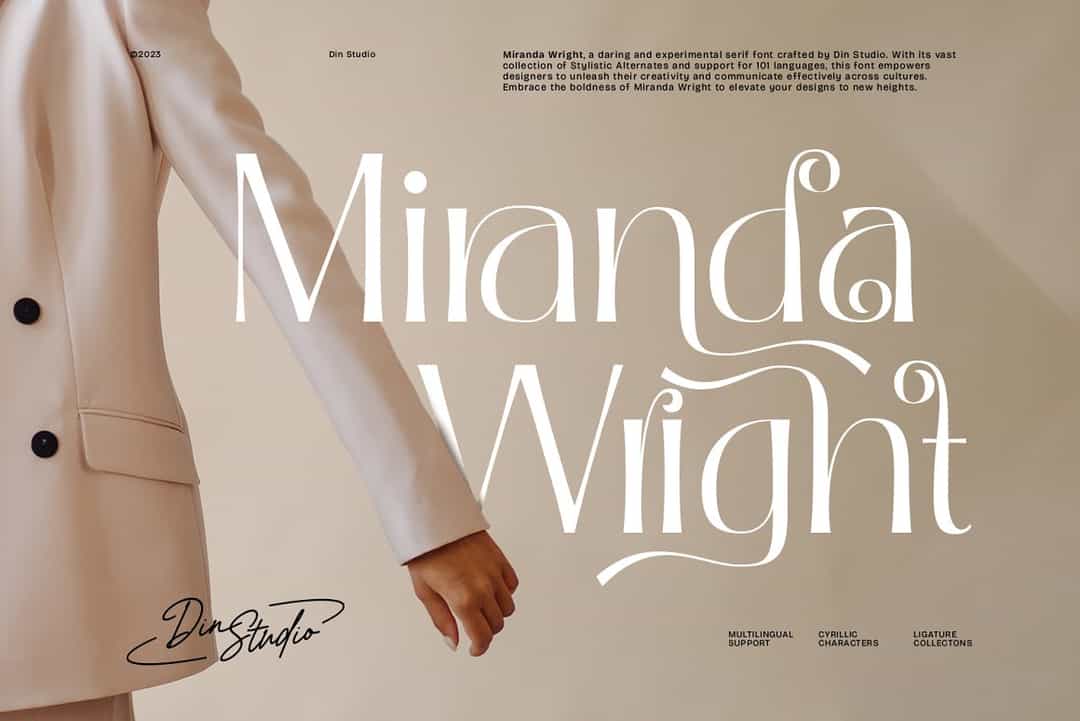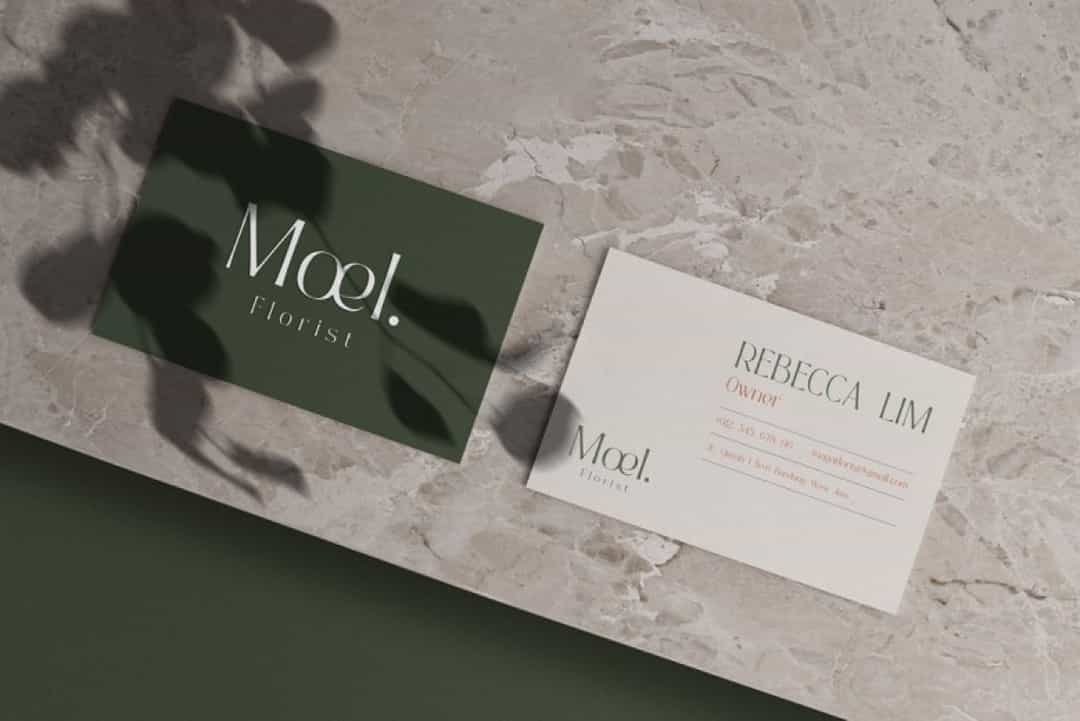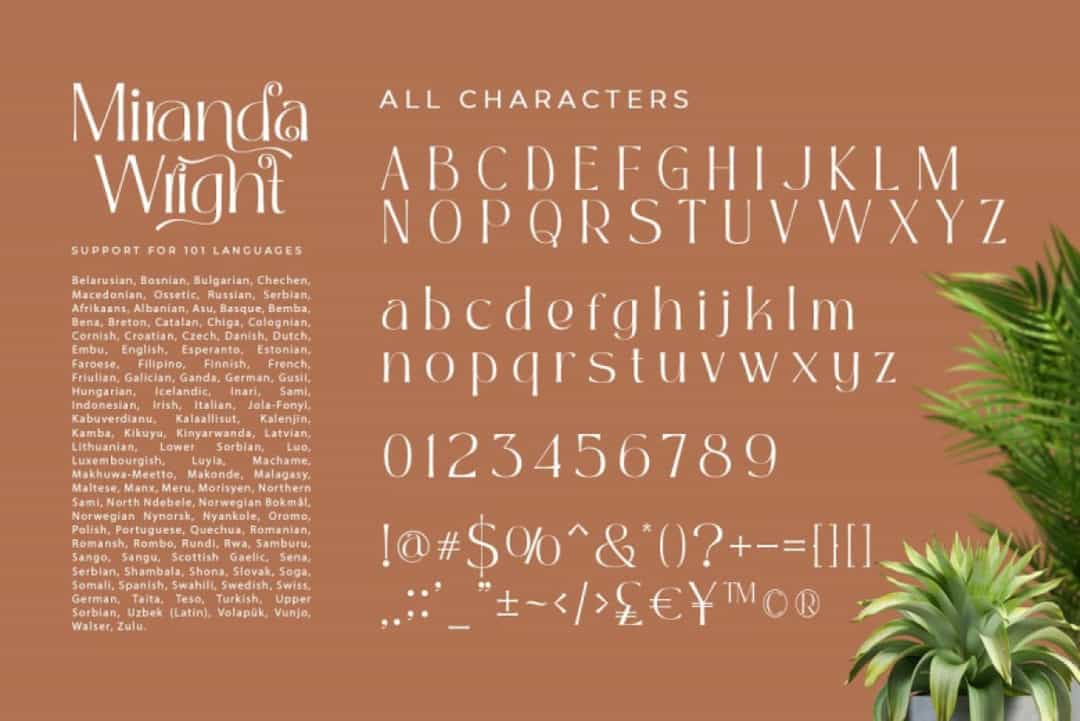
Miranda Wright is an exquisite serif typeface designed with sophistication in mind. Each letter is meticulously created using precise details, exuding elegance and sophistication. What truly distinguishes Miranda Wright is its final letters’ elegant circular swings which give the typeface its unique charm and beauty.